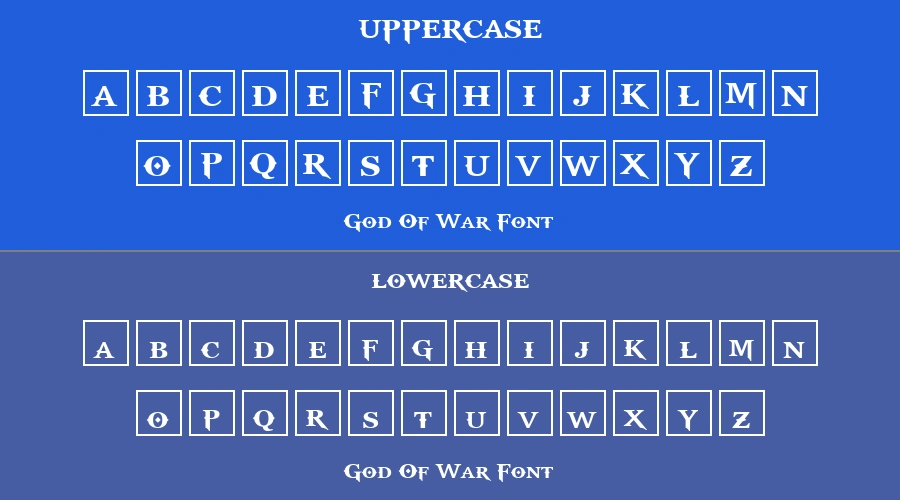
About God Of War Font
God Of War Font represents a sophisticated approach to type design, balancing subtle details with adaptability. Perfect for marketing materials, this font family showcases impressive legibility and technical sophistication throughout its character set. Designers appreciate its versatility and reliability.
Designers will appreciate nuanced touches including humanist proportions and monogram components, adding sophistication to any project. These features become apparent in page numbers, where language switching matters most. The careful treatment of curve radius and engineering heritage ensures optimal performance.